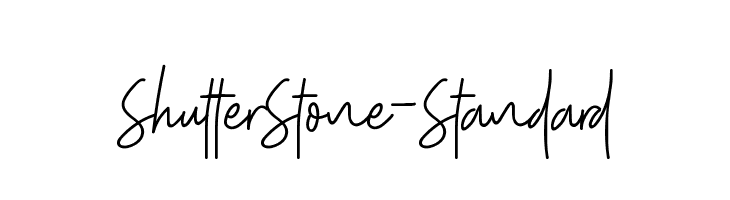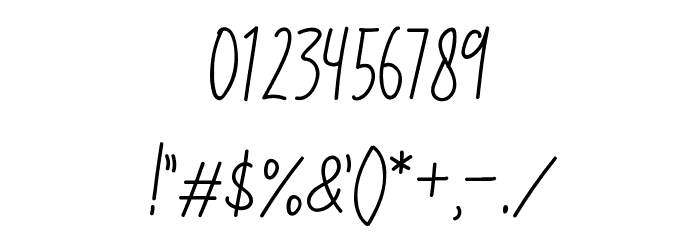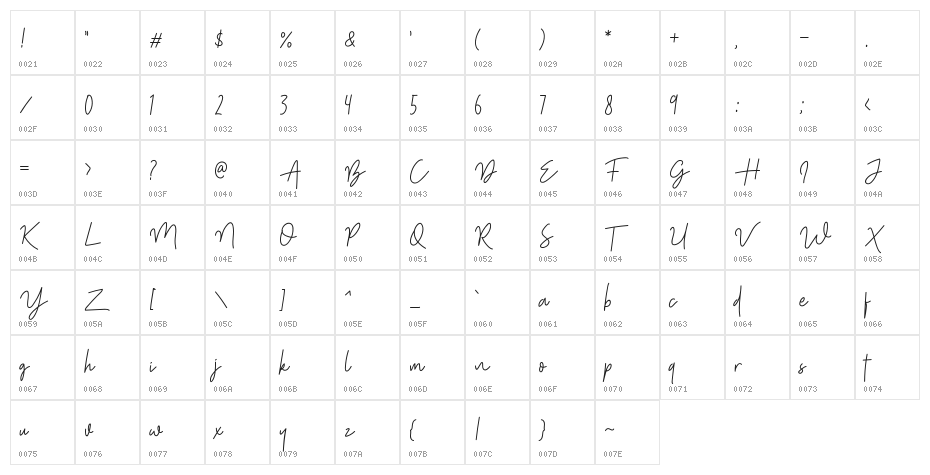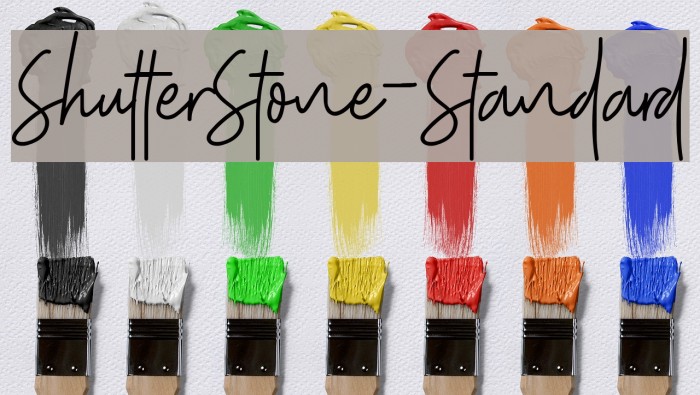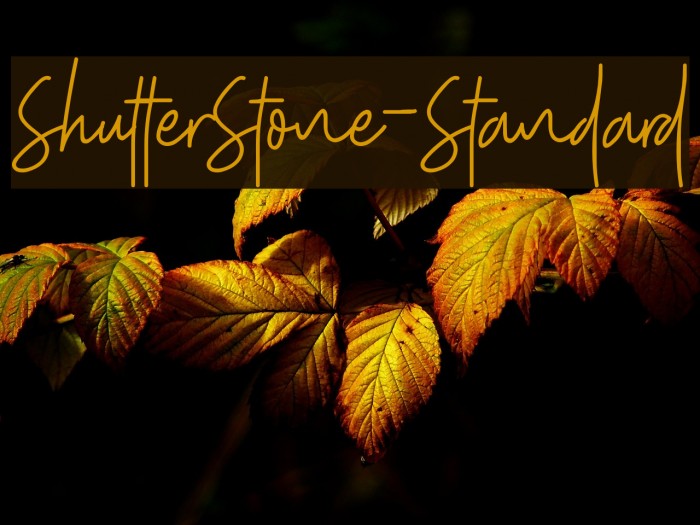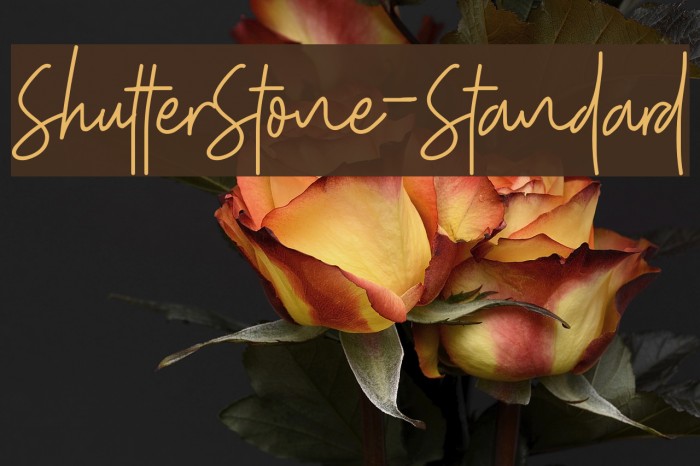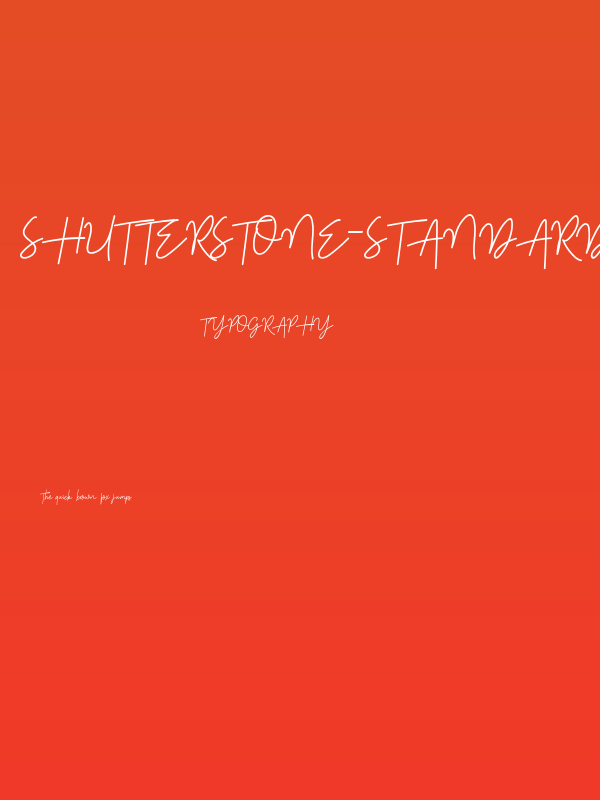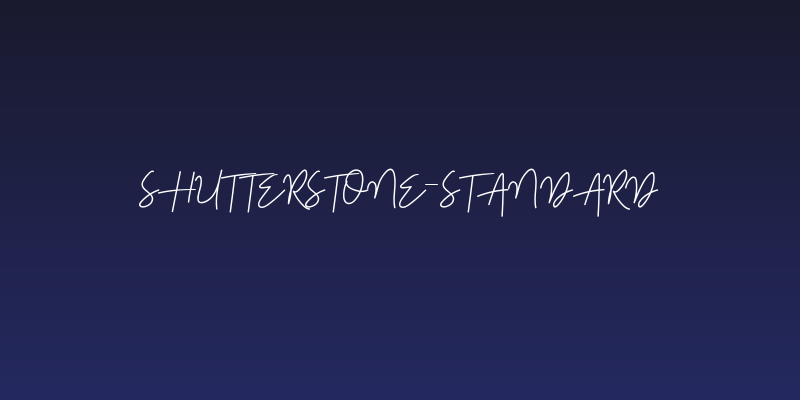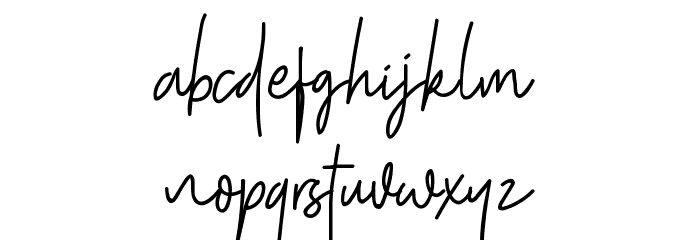
ShutterStone-Standard Font
ShutterStone-Standard Description
This font exudes a casual, handwritten style with a modern twist. The letters are fluid and connected, giving it a natural, flowing appearance. The uppercase characters maintain a consistent height, while the lowercase letters vary slightly in size, adding to the informal feel. The numbers are clear and legible, matching the style of the letters. Special characters are included, maintaining the same handwritten aesthetic. The overall look is both stylish and approachable, making it suitable for a variety of creative projects.
| Proposed Projects | Ideal for personal branding, invitations, greeting cards, and social media graphics. |